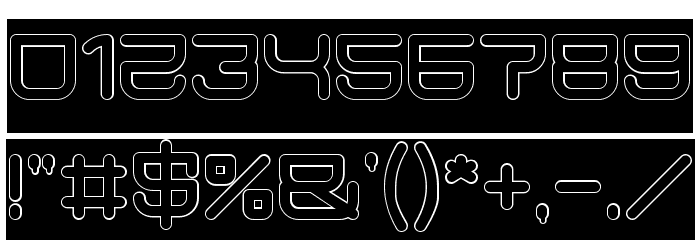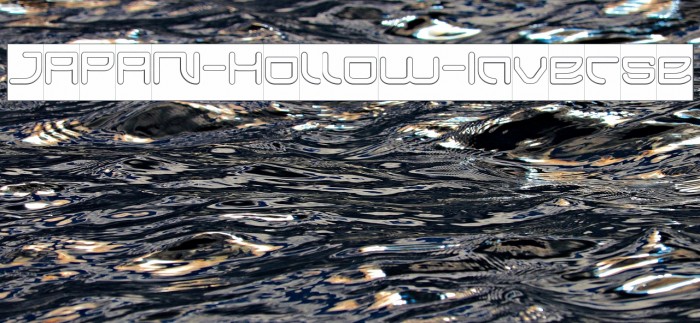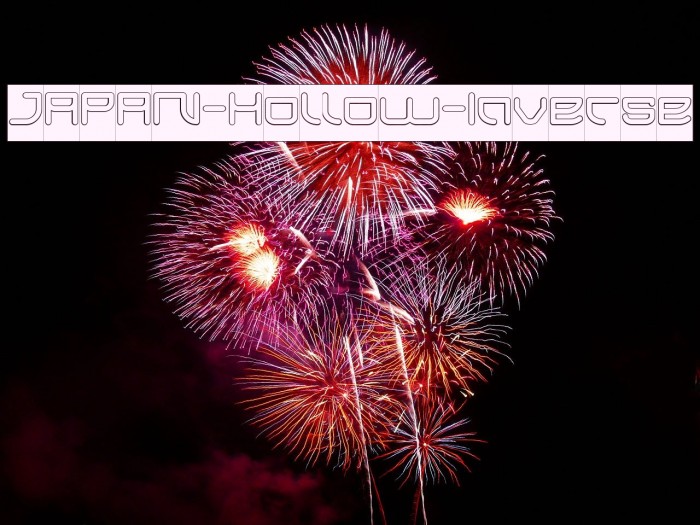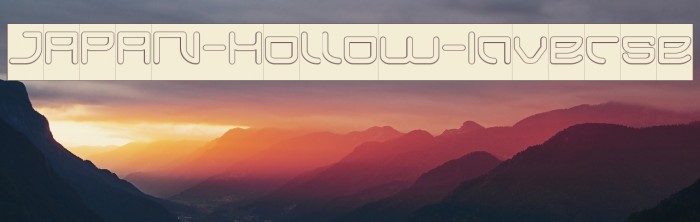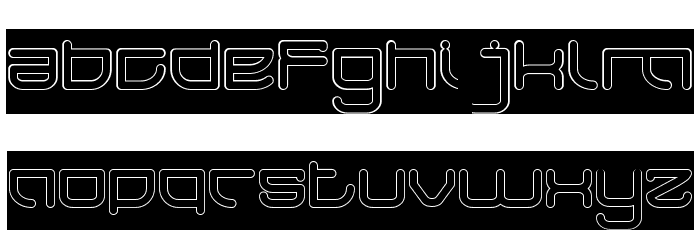
JAPAN-Hollow-Inverse Font
JAPAN-Hollow-Inverse Description
This font features a unique hollow design with an inverse style, creating a striking visual effect. The characters are outlined with a consistent stroke width, giving them a modern and futuristic appearance. The uppercase and lowercase letters maintain a geometric structure, with sharp angles and clean lines. Numbers and special characters follow the same design principles, ensuring uniformity across all glyphs. The font's hollow nature makes it ideal for projects that require a bold statement without overwhelming the viewer. Its distinct style is both eye-catching and versatile, suitable for a variety of creative applications.
| Proposed Projects | Ideal for branding, posters, digital art, and futuristic-themed designs. |